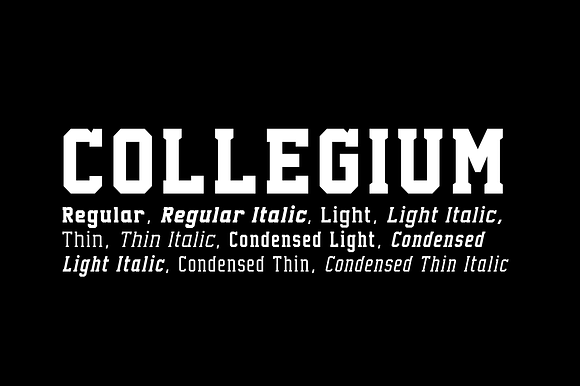
Collegium - 10 fonts
Collegium is a font family inspired by college and university sportswear lettering.
Collegium - 10 fonts by Leitmotif fits naturally into Branding, posters, packaging, typography.